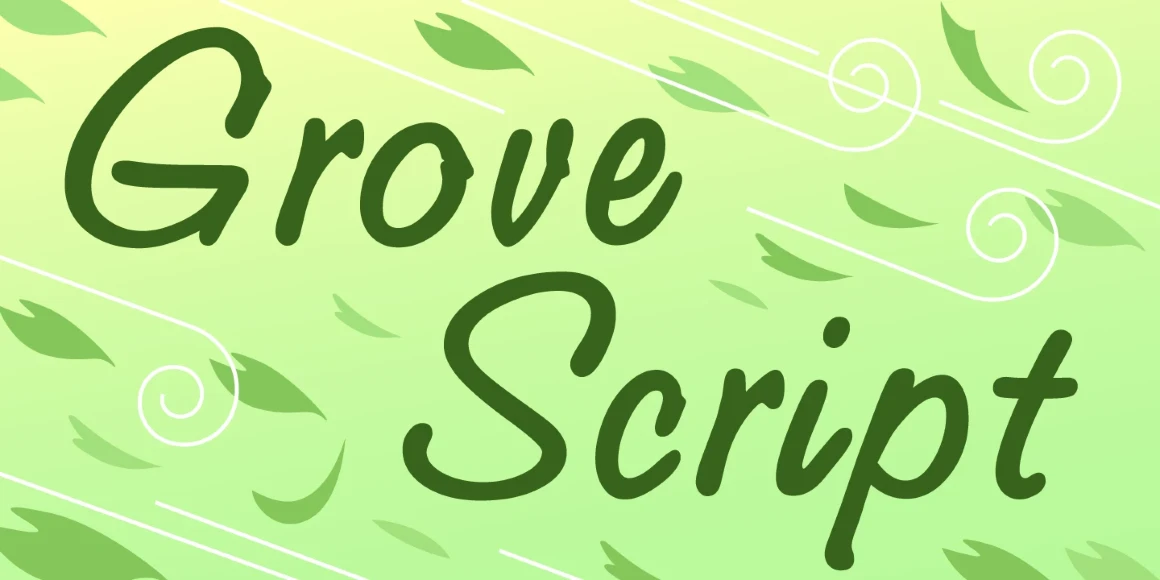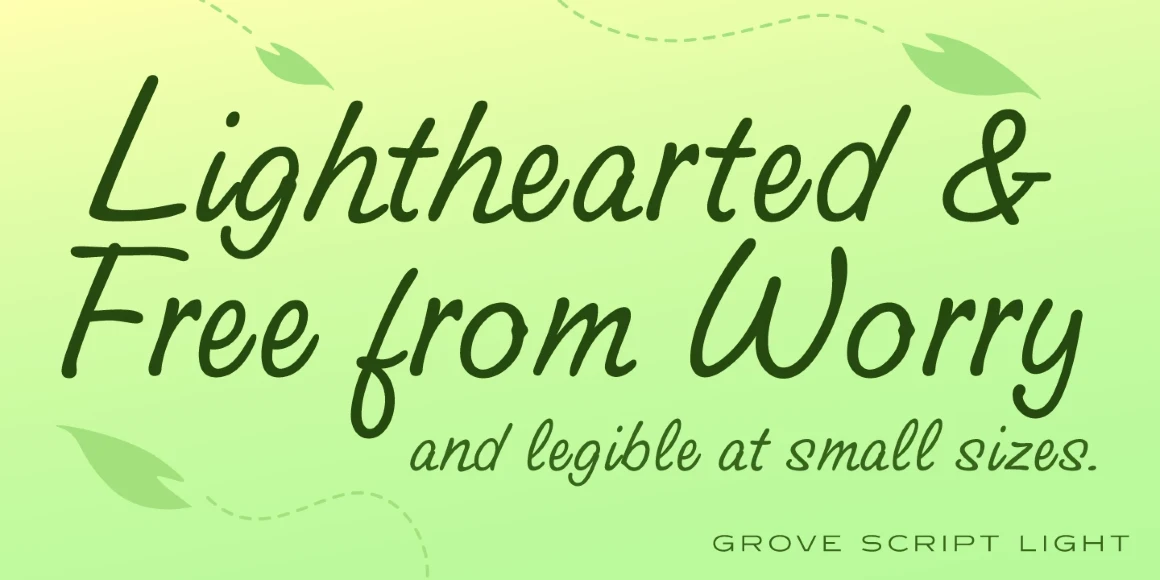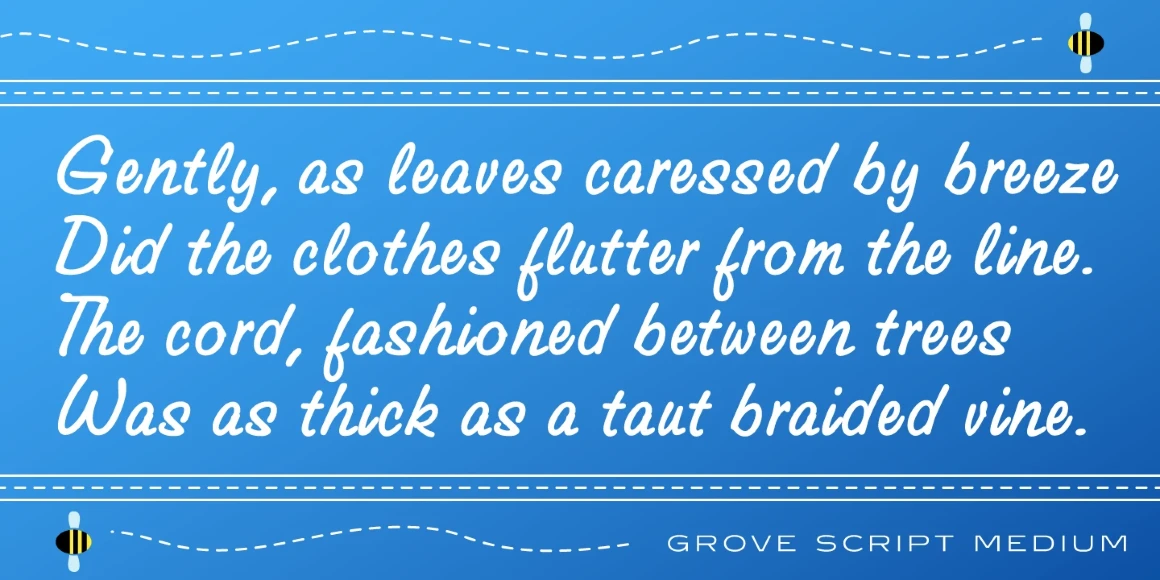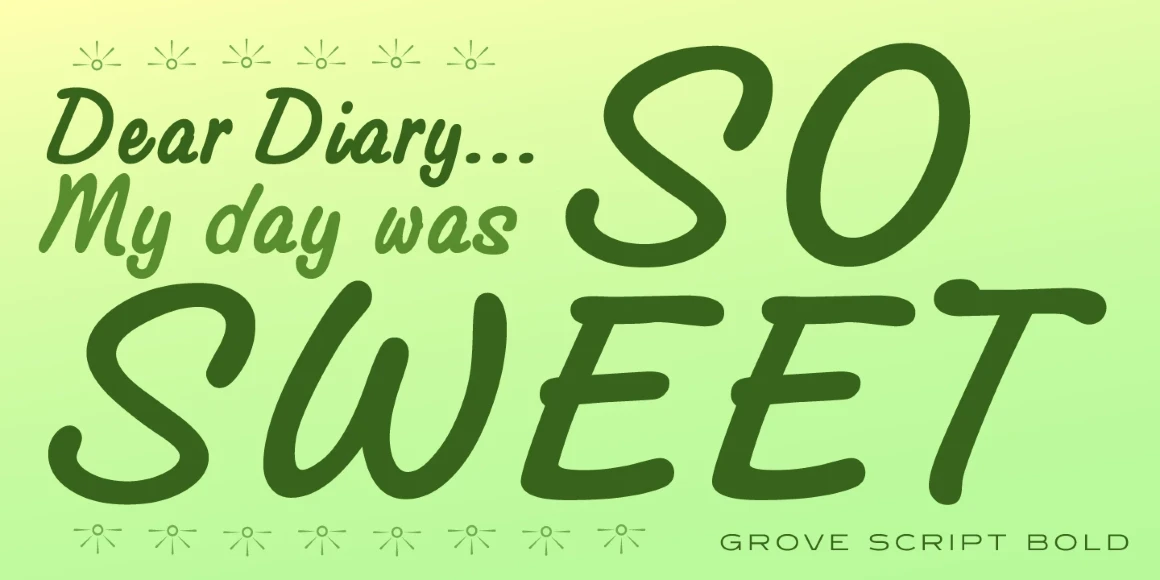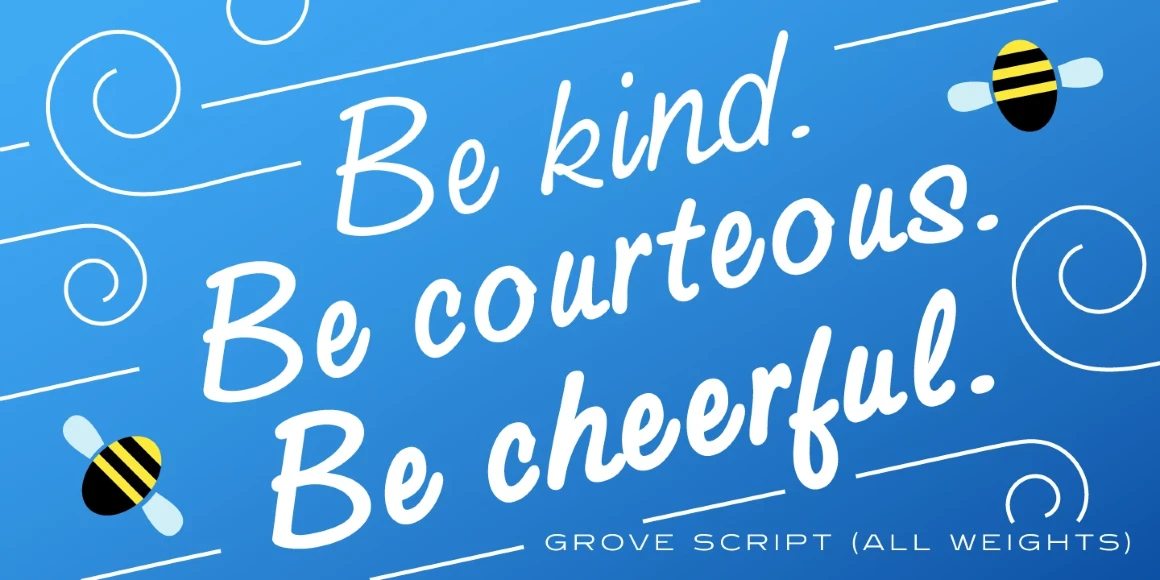
Grove Script
From Red Rooster Collection
Grove Script is a casual script font family. It began its life as a single typeface at QBF in Manchester, England, under the name ‘Em Script.’ Grove Script’s digital letterforms were manufactured by Pat Hickson (P&P Hickson) exclusively for the Red Rooster Collection, and its full commercial version was produced by Steve Jackaman (ITF) in 1992. Grove Script has a comfortable feminine feel, and was designed with legibility in mind. Its sweeping strokes display nicely at all text sizes, and brings charm to any project.
Grove Script Light
Grove Script Medium
Grove Script Bold